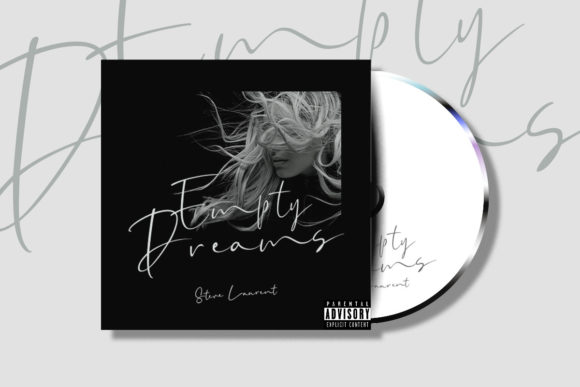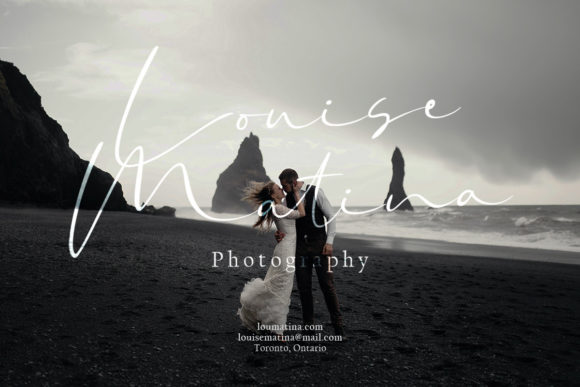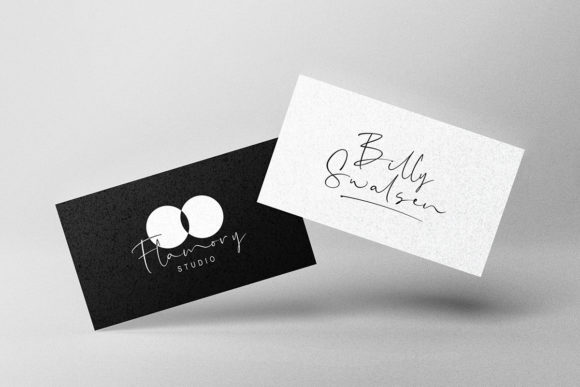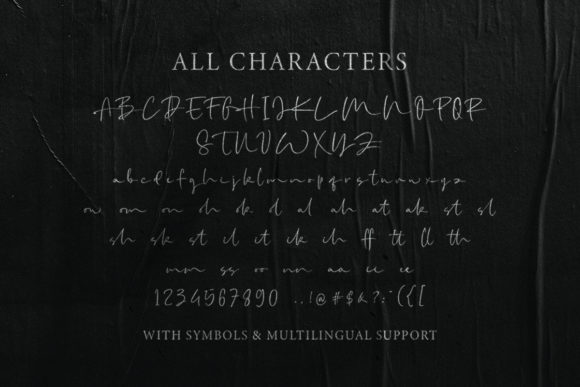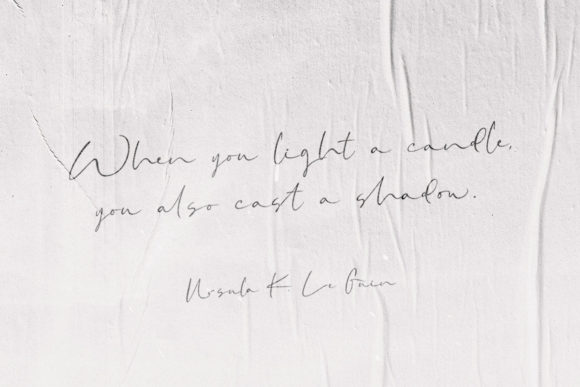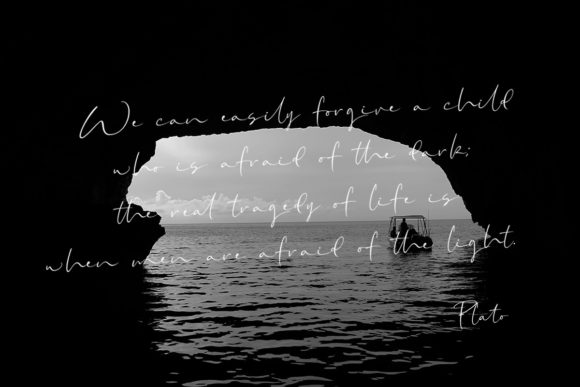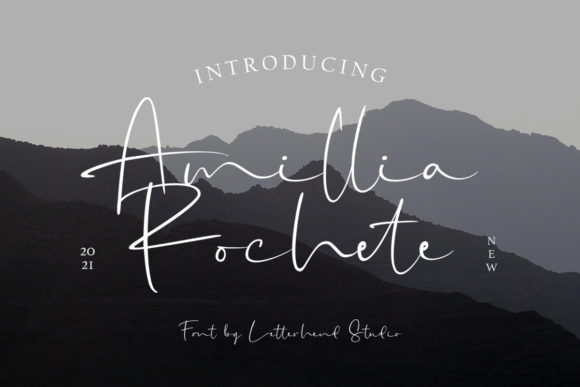
Introducing Amillia Rochete Font: The Epitome of Luxurious Cursive Handwriting
Are you on the hunt for a font that exudes elegance, sophistication, and romance? Look no further than Amillia Rochete Font, a stunning cursive handwritten font that is sure to elevate your designs to new heights. With its gentle and flowing curves, Amillia Rochete is the perfect addition to any project that requires a touch of luxury and whimsy.
The Characteristics of Amillia Rochete Font
Amillia Rochete Font is a beautifully crafted cursive script font that boasts a range of characteristics that make it truly unique. Its most notable feature is its fluid, connected letters that give it a sense of movement and fluidity. The font’s gentle curves and rounded edges create a soft, romantic feel that is perfect for designs that require a touch of femininity.
One of the standout features of Amillia Rochete Font is its versatility. This font can be used for a wide range of design projects, from wedding invitations and branding materials to packaging and digital media. Its luxurious feel makes it perfect for high-end designs, while its playful curves add a touch of whimsy to more casual projects.
What Makes Amillia Rochete Font So Special?
So, what sets Amillia Rochete Font apart from other fonts on the market? For starters, its unique blend of elegance and playfulness makes it a true standout. The font’s cursive letters are carefully crafted to create a sense of movement and flow, giving it a dynamic feel that is hard to resist.
Another factor that makes Amillia Rochete Font so special is its ability to evoke emotions. The font’s romantic and whimsical feel makes it perfect for designs that require a touch of sentimentality. Whether you’re creating a wedding invitation or a branding campaign, Amillia Rochete Font is sure to add a touch of warmth and personality to your designs.
How to Use Amillia Rochete Font in Your Designs
Amillia Rochete Font is incredibly easy to use and can be incorporated into a wide range of design projects. Here are a few ideas to get you started:
- Wedding Invitations: Add a touch of romance and elegance to your wedding invitations with Amillia Rochete Font. Its cursive letters and flowing curves create a beautiful, whimsical feel that is perfect for wedding designs.
- Branding Materials: Use Amillia Rochete Font to add a touch of luxury and sophistication to your branding materials. Its elegant feel makes it perfect for high-end brands that require a sense of refinement and poise.
- Packaging: Add a touch of whimsy and playfulness to your packaging designs with Amillia Rochete Font. Its gentle curves and rounded edges create a soft, romantic feel that is perfect for packaging designs that require a touch of femininity.
- Digital Media: Use Amillia Rochete Font to add a touch of elegance and sophistication to your digital media designs. Its luxurious feel makes it perfect for social media graphics, blog headers, and other digital designs that require a sense of refinement.
Tips and Tricks for Working with Amillia Rochete Font
Here are a few tips and tricks to keep in mind when working with Amillia Rochete Font:
- Pair it with a sans-serif font: Amillia Rochete Font pairs beautifully with sans-serif fonts like Arial or Helvetica. Try pairing it with a bold sans-serif font for a striking contrast.
- Experiment with colors: Amillia Rochete Font looks stunning in a range of colors, from soft pastels to rich jewel tones. Experiment with different colors to find the perfect combination for your design.
- Use it sparingly: While Amillia Rochete Font is beautiful, it can be overwhelming if used too much. Use it sparingly to add a touch of elegance and sophistication to your designs.
Amillia Rochete Font is a truly unique and luxurious cursive handwritten font that is sure to elevate your designs to new heights. Its gentle curves, flowing letters, and romantic feel make it perfect for a wide range of design projects, from wedding invitations and branding materials to packaging and digital media. With its versatility, elegance, and whimsy, Amillia Rochete Font is a must-have for any designer or crafter looking to add a touch of sophistication and romance to their designs.